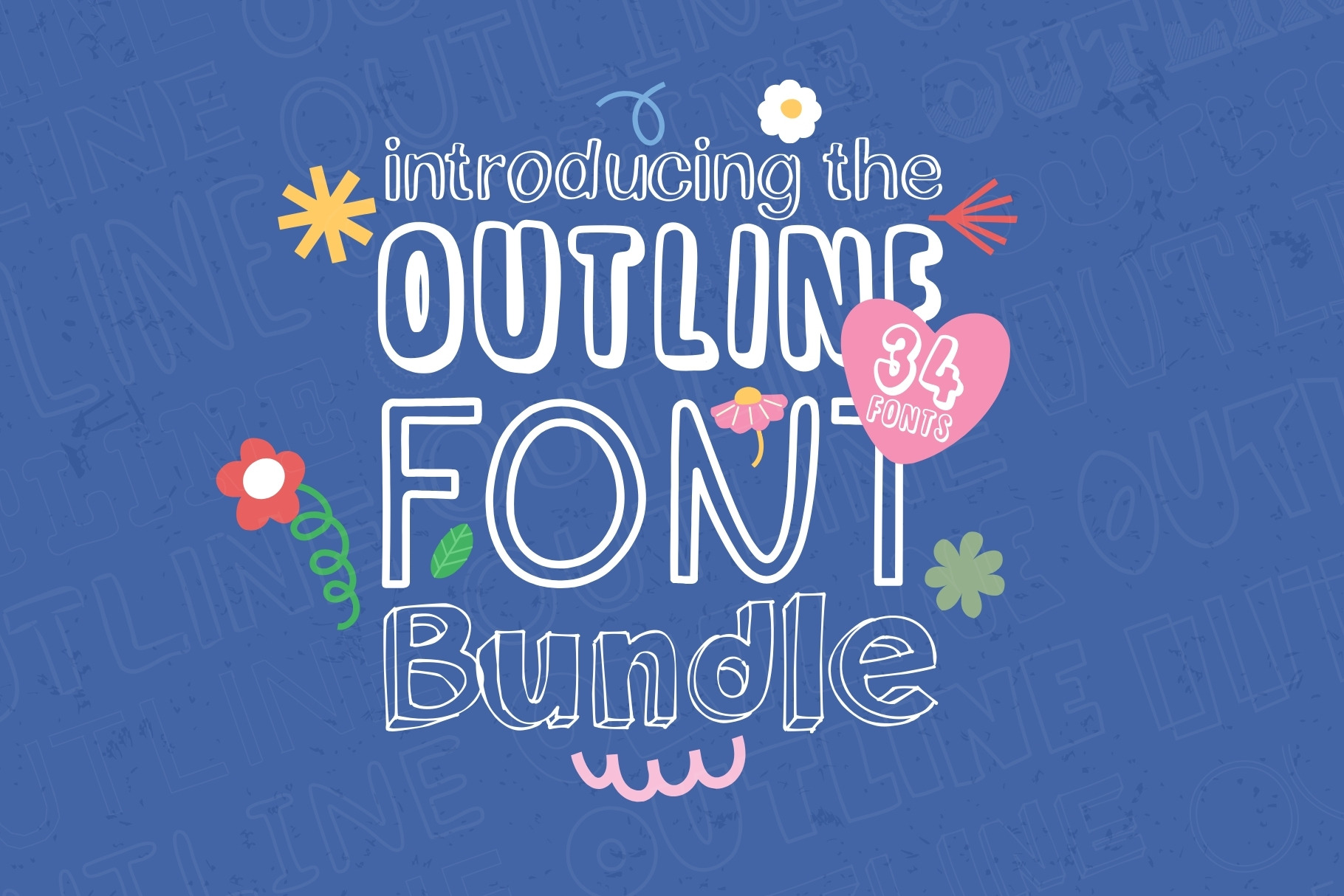
Outline Font Bundle - 34 Fonts!
Say hello to the ultimate collection of bold borders, playful strokes, and eye-catching lettering — the Outline Font Bundle. Featuring 34 unique outline fonts, this powerful pack gives you endless creative possibilities in one unbeatable collection.
From bubbly and playful to modern and minimal, from chunky cartoon outlines to sleek monoline frames — this bundle is packed with variety. Whether you're designing for kids, brands, posters, apparel, packaging, or social media, you’ll always have the perfect outlined style ready to go.
Outline fonts are incredibly versatile — layer them, fill them, shadow them, stack them, or mix them with solid fonts to create bold dimensional typography. This bundle makes experimenting effortless.
🎨 What’s Inside?
34 High-Quality Outline Fonts
A wide range of styles:
Fun & playful
Bold & chunky
Clean & modern
Retro-inspired
Minimal monoline
Decorative & expressive
Whether you want something cute, bold, trendy, or clean — this collection has it covered.